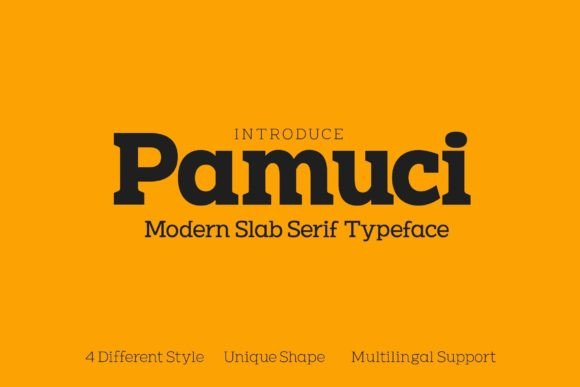
Unleash your creativity with Pamuci, the minimalist slab serif font family that will redefine your typography game. Crafted with simplicity and modernity in mind, Pamuci is the perfect choice for those seeking a clean and elegant font that packs a punch.
Immerse yourself in the world of Pamuci, where your designs take center stage. Whether you're a seasoned designer or just starting out, Pamuci's versatility will astound you. From captivating book covers and magazine layouts to eye-catching social media posts and stunning invitations, Pamuci effortlessly elevates your creations to new heights.
Experience the joy of crafting logos that stand the test of time with Pamuci's timeless design. Its bold strokes and sharp serifs exude sophistication and professionalism, ensuring that your brand's message shines through with clarity and impact.
Pamuci is more than just a font; it's an extension of your creative spirit. Let your imagination soar as you weave words into art, transforming ordinary designs into extraordinary masterpieces. Its minimalist aesthetic seamlessly blends with any visual concept, allowing your creativity to take the spotlight.
Don't settle for ordinary fonts that blend into the background. Embrace the power of Pamuci and watch your designs come to life with a captivating allure that leaves a lasting impression. Join the creative revolution and experience the transformative power of Pamuci today!